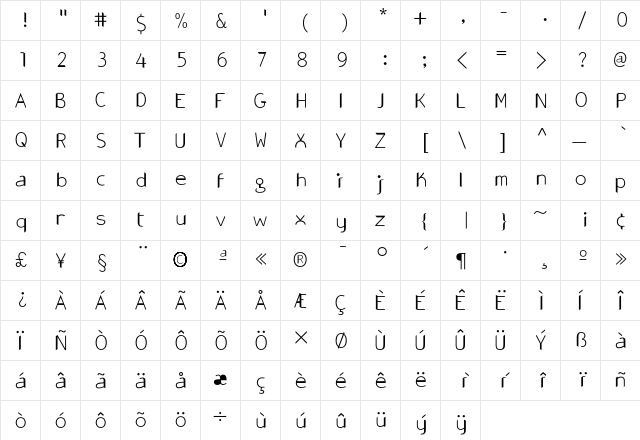
Gonza Regular
Design Context for Gonza Typeface
Gonza is a composed and adaptable typeface that performs quietly and consistently across a wide range of design contexts.
Pro Tip: Use Gonza in both headline and body roles to test its range before committing to a single application.